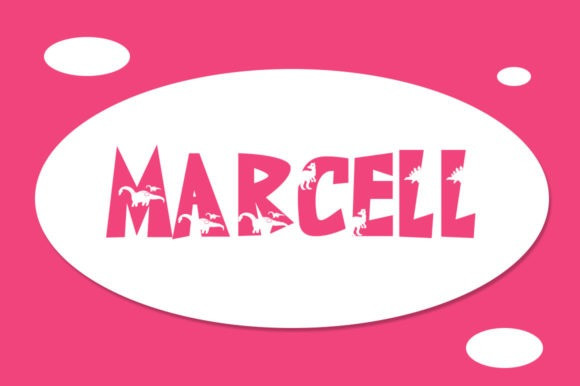
Dino Kids Font
Dino Kids Font is a quirky, fun and bold display font. Whether you use it for cartoon related designs, children games or just any creation that requires a lovely touch, this font will be an amazing choice.